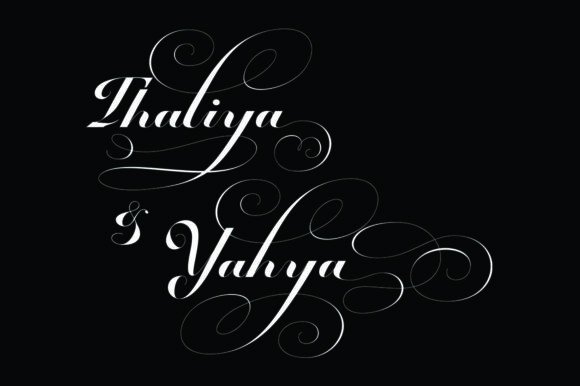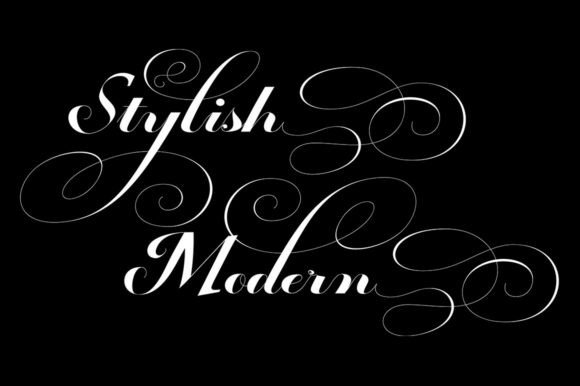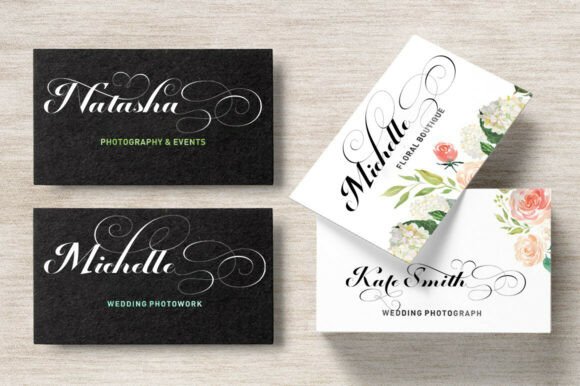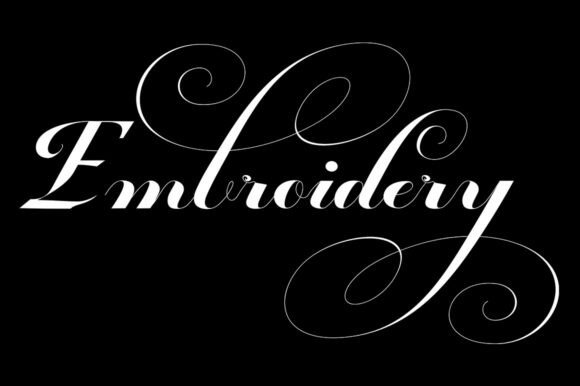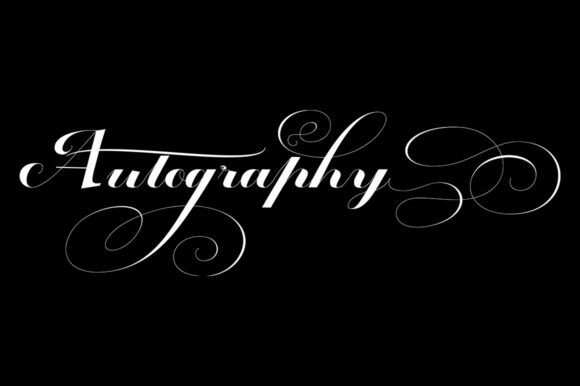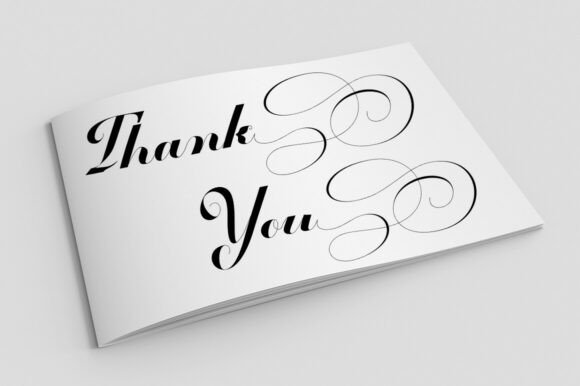
Congrats Calligraphy Font: Elevate Your Designs with Timeless Elegance
Are you looking for a font that exudes luxury, sophistication, and elegance? Look no further than Congrats Calligraphy, a modern calligraphy font that is sure to elevate your designs to new heights. With its refined contrast, luxurious swashes, and graceful flourishes, this exquisite font is perfect for designers and crafters who want to add a touch of high-class style to their work.
The Perfect Font for Elegant Designs
Congrats Calligraphy is designed to bring a sense of timeless elegance to your designs. Whether you’re creating wedding invitations, elegant branding, logos, certificates, or upscale packaging, this font is the perfect choice. Every letter is carefully crafted to flow with style, giving your designs a sophisticated, high-class finish that is sure to impress.
Key Features of Congrats Calligraphy
- Luxurious Swashes: Add a touch of drama and elegance to your designs with Congrats Calligraphy’s luxurious swashes.
- Refined Contrast: The font’s refined contrast gives it a sense of sophistication and luxury, making it perfect for high-end designs.
- Graceful Flourishes: Every letter is adorned with graceful flourishes that add a touch of whimsy and elegance to your designs.
- Timeless Elegance: Congrats Calligraphy is a modern calligraphy font that is inspired by traditional calligraphy, giving it a timeless elegance that will never go out of style.
Uses for Congrats Calligraphy
Congrats Calligraphy is a versatile font that can be used for a wide range of design projects, including:
- Wedding Invitations: Add a touch of elegance and sophistication to your wedding invitations with Congrats Calligraphy.
- Elegant Branding: Use Congrats Calligraphy to create elegant and sophisticated branding for your business or product.
- Logos: Create a luxurious and high-end logo for your business or product with Congrats Calligraphy.
- Certificates: Add a touch of elegance and sophistication to your certificates with Congrats Calligraphy.
- Upscale Packaging: Use Congrats Calligraphy to create upscale packaging that exudes luxury and sophistication.
Why Choose Congrats Calligraphy?
There are many calligraphy fonts available, but Congrats Calligraphy stands out from the rest. Here are just a few reasons why:
- Unique and Elegant: Congrats Calligraphy is a unique and elegant font that will add a touch of sophistication to your designs.
- High-Quality: The font is designed with high-quality and precision, ensuring that it looks great in any design.
- Versatile: The font can be used for a wide range of design projects, making it a great addition to any designer’s toolkit.
Tips for Using Congrats Calligraphy
Here are a few tips for using Congrats Calligraphy in your designs:
- Use it Sparingly: Congrats Calligraphy is a elegant and sophisticated font, so use it sparingly to add a touch of luxury to your designs.
- Experiment with Swashes: The luxurious swashes in Congrats Calligraphy are a great way to add drama and elegance to your designs.
- Pair it with Other Fonts: Congrats Calligraphy can be paired with other fonts to create a unique and interesting design.
Congrats Calligraphy is an exquisite modern calligraphy font that combines timeless elegance with graceful flourishes. With its luxurious swashes, refined contrast, and sophisticated style, this font is perfect for designers and crafters who want to add a touch of high-class style to their work. Whether you’re creating wedding invitations, elegant branding, logos, certificates, or upscale packaging, Congrats Calligraphy is the perfect choice.